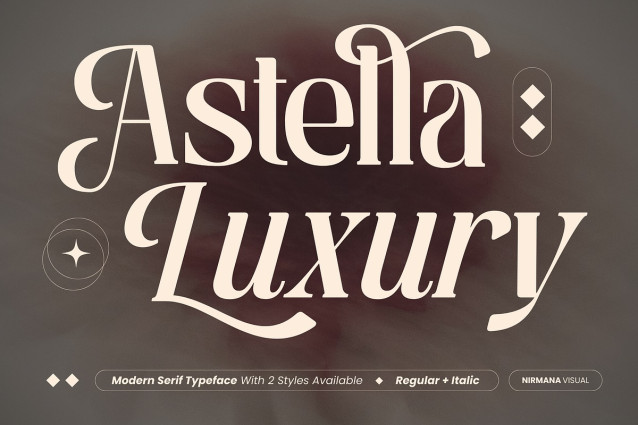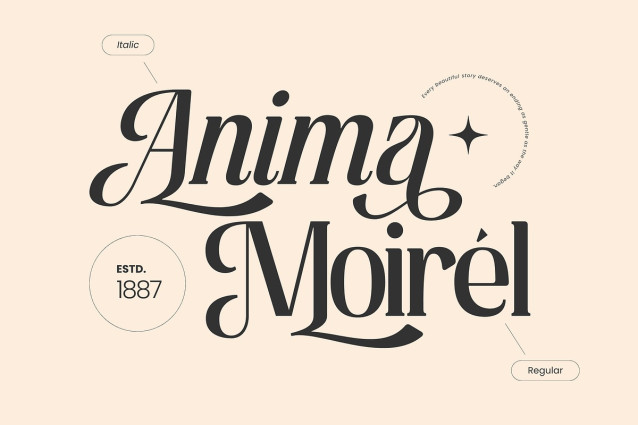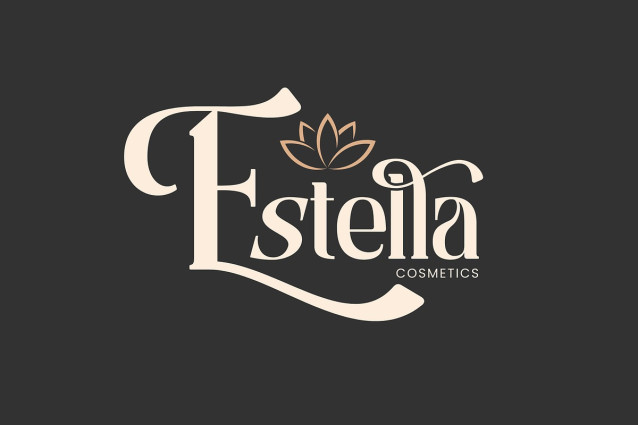
Astella Luxury Font
Astella Luxury Font is a refined serif display typeface crafted for elegant logo design, premium branding, and high-end visual identity. Designed with graceful proportions and sharp contrast, Astella brings a sophisticated presence to fashion labels, jewelry brands, beauty products, and editorial layouts. It comes with regular and italic styles, enriched with beautiful ligatures that enhance its luxurious character. Perfect for creating timeless, classy, and exclusive brand impressions.